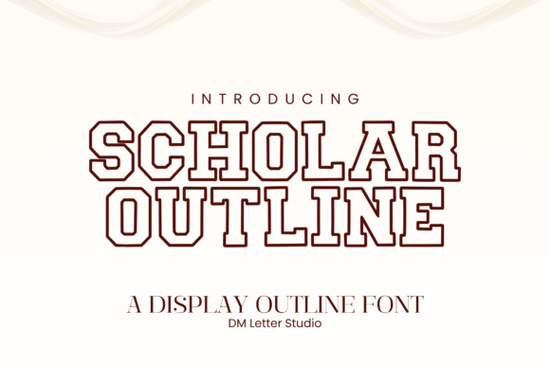
If you are looking for a typeface that captures classic college spirit without feeling too heavy, the Scholar Block Outline Font is a fantastic choice. This varsity style uses a clean, hollowed-out approach to traditional block lettering. It gives you the bold impact of athletic typography while keeping the overall look breathable and modern. Whether you are designing team apparel or digital graphics, Scholar Block Outline provides a sharp alternative to standard filled styles.
What makes this outline varsity font different from standard block styles?
Standard college lettering often relies on thick, solid fills that can dominate a layout. This typeface takes that familiar athletic identity and removes the heavy fill. The result is a sturdy block structure that feels much lighter on the page. Because the letters are hollow, you have room to play with backgrounds, add inner colors, or layer it over other graphics. The all-caps format keeps everything uniform, which is exactly what you need when creating bold headlines or locker room signs.
Where can I use this font for my print-on-demand or client projects?
You can use this typeface across a wide range of physical and digital products. It is particularly useful for small businesses and crafters who need versatile typography. Great applications include:
- Sports and academic apparel: Perfect for letterman jackets, spirit week t-shirts, and gym bags.
- Digital content: Great for YouTube thumbnails, Instagram story backgrounds, and podcast cover art.
- Esports branding: Gives team logos and tournament banners a structured, competitive feel.
When pairing it with other typefaces, try mixing it with a clean script or a simple sans-serif. If you need a more decorative touch for a seasonal project, you might also pair it with a cheerful holiday display font or a velvety vintage display font. For a classic, rugged look, combining it with Racken or Ryehouse can create a really interesting contrast on your posters.
Quick tips for getting the best results
- Check your tracking: Since the letters are outlined, give them a little extra spacing so the hollow spaces do not bleed together at smaller sizes.
- Use contrasting backgrounds: The outline effect really pops when placed over a solid color or a simple geometric pattern.
- Test your cuts: If you are using a cutting machine, do a small test cut first to ensure the inner holes of letters like O and A weed cleanly.